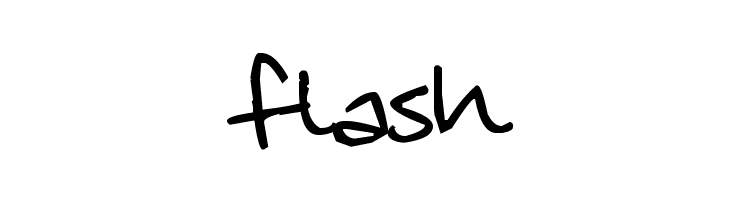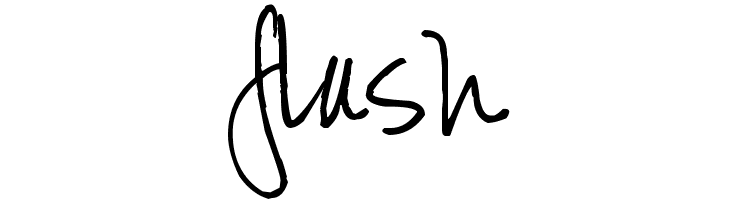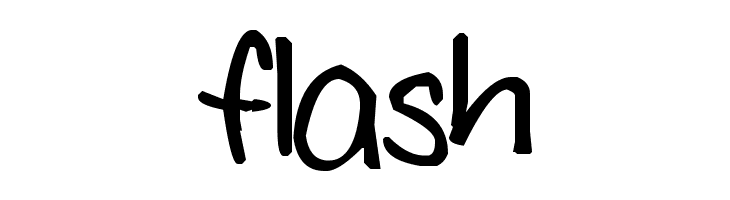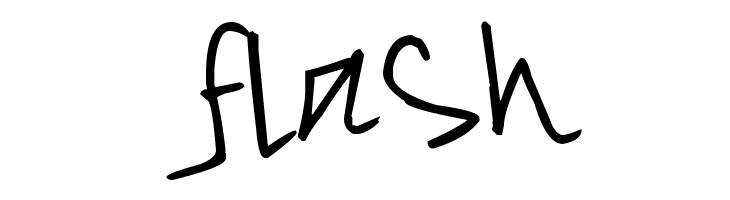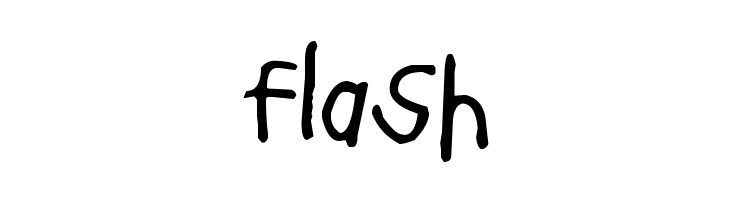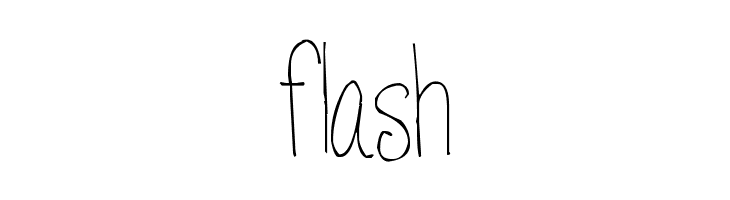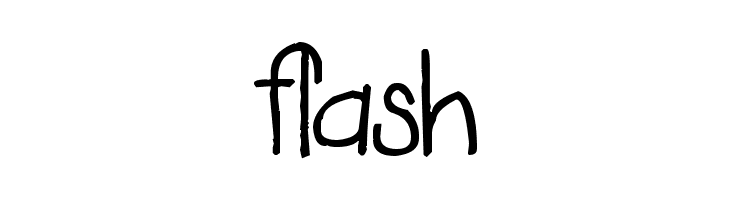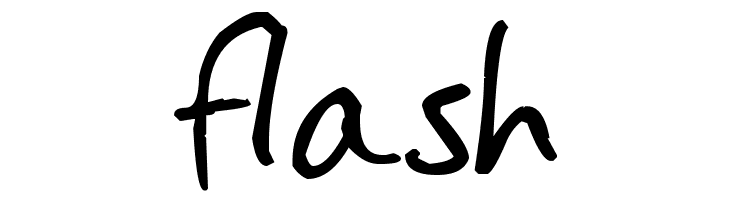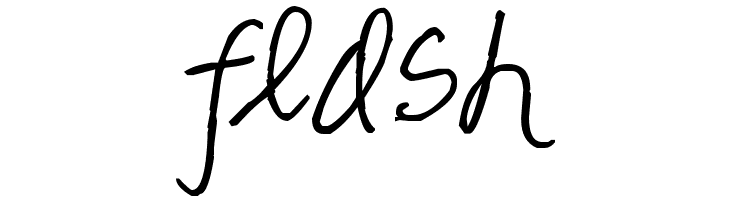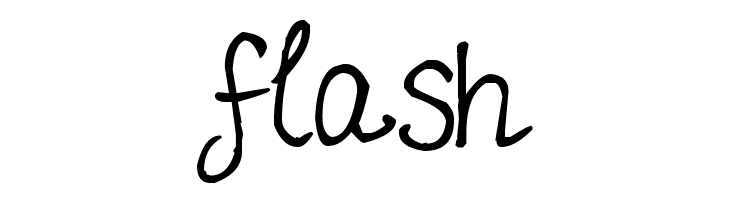
• Pea Kristin
A playful, casual handwritten font with bold, irregular strokes.
• Pea Kristy
A playful, casual handwritten font with uneven strokes and organic flow.
• Pea KT Doodles
A playful, hand-drawn font with whimsical, doodle-like characters.
• Pea KT Puppy Love Doodles
A playful, hand-drawn doodle font with dog-themed illustrations.
• Pea Lacy
A playful, casual handwritten font with irregular strokes and a whimsical style.
• Pea Lacy Chunky
A bold, playful handwritten font with chunky, uneven strokes.
• Pea Lauren America
A playful, casual handwritten font with bold strokes and a lively appearance.
• Pea Lauren Doodles
A playful, hand-drawn font with whimsical doodles and casual lettering.
• Pea Lauren France
A playful, handwritten font with bold, irregular strokes and a casual feel.
• Pea Leigh Leigh
A playful, handwritten font with a whimsical and casual style.
• Pea Lex Valentine
A lively, handwritten font with flowing, cursive letterforms and a personal touch.
• Pea Lindsey
A playful, handwritten font with smooth, flowing lines and a friendly appearance.
• Pea Lindsey Unicase
A playful, handwritten font with a mix of uppercase and lowercase letters.
• Pea Lis
A playful, casual handwritten font with a dynamic and lively feel.
• Pea Lissa
A playful, casual handwritten font with irregular strokes and a personal touch.
• Pea Little-Ducky
A playful, handwritten font with a casual and friendly vibe.
• Pea Liz
A playful, handwritten font with a casual and dynamic style.
• Pea Loftsgard
A casual, handwritten font with a playful and informal style.
• Pea Lou Who
A playful, hand-drawn font with a whimsical and casual style.
• Pea Luv-2-Scrapbook
A playful, handwritten font with bold, rounded strokes and a casual feel.
• Pea Lyndal
A playful, handwritten font with bold, irregular strokes.